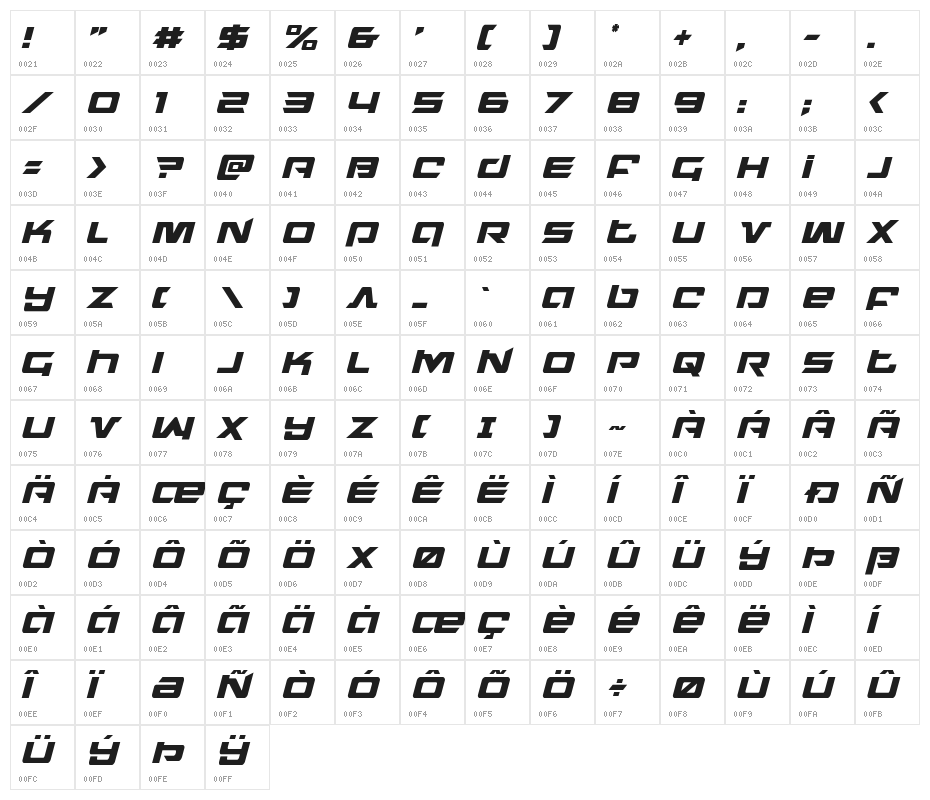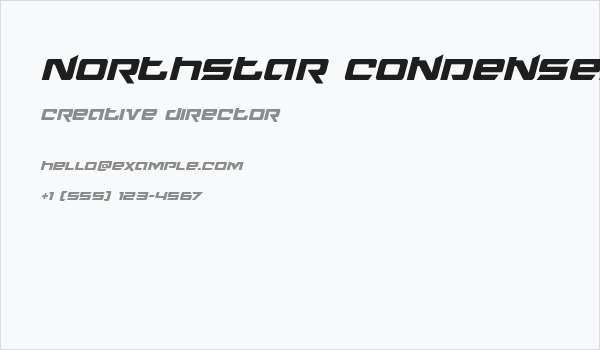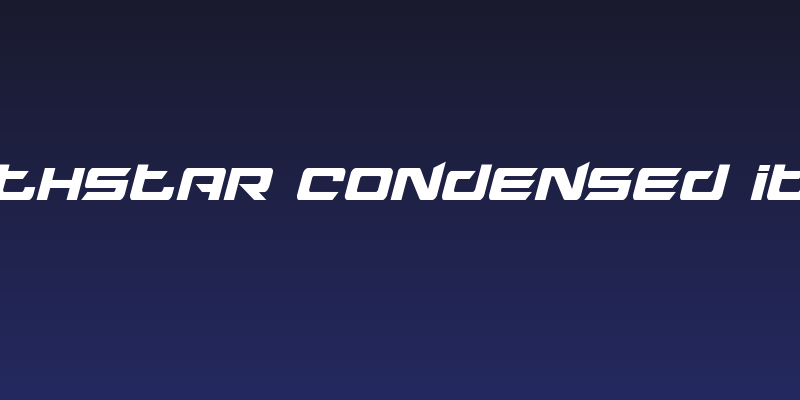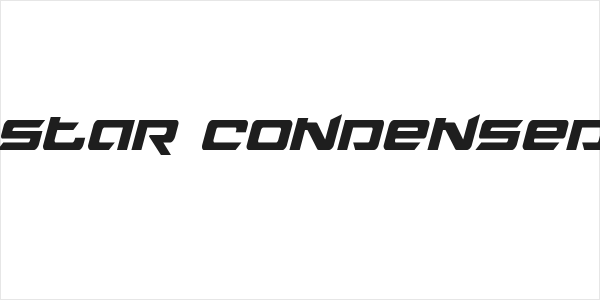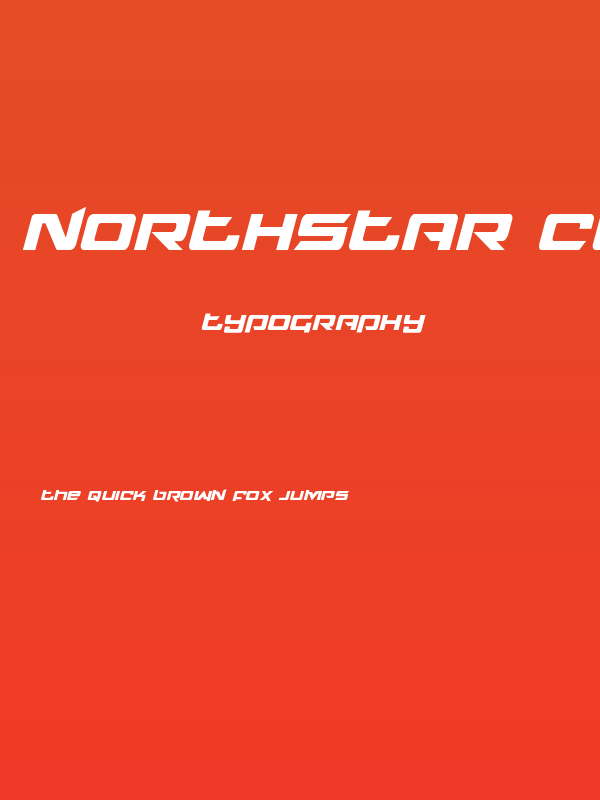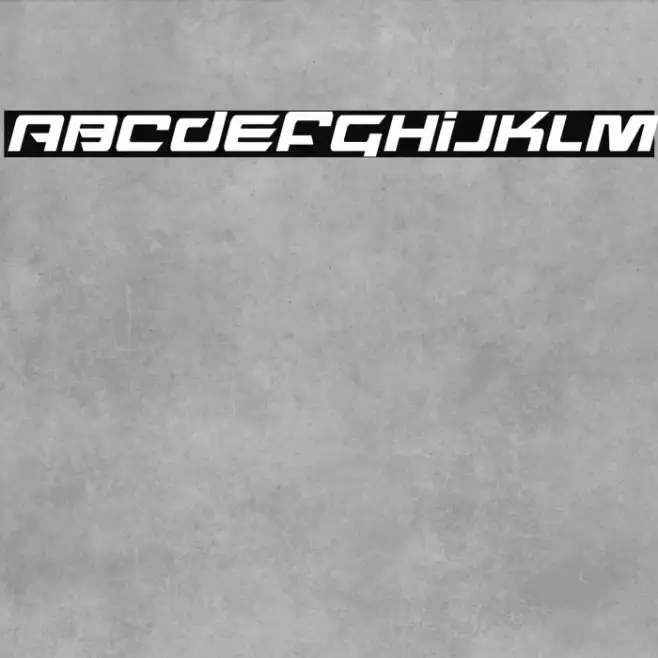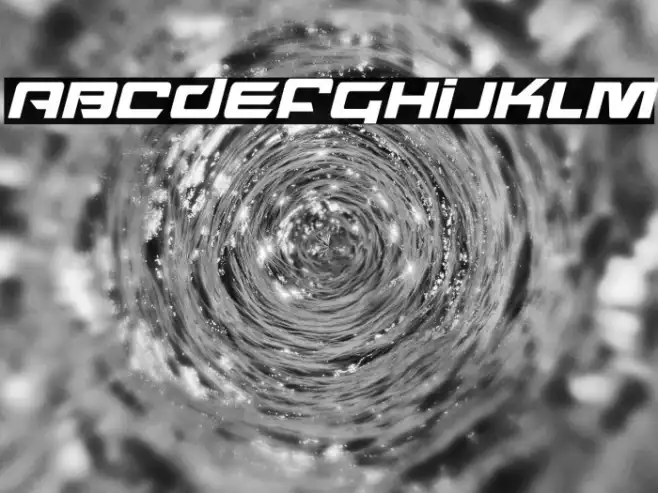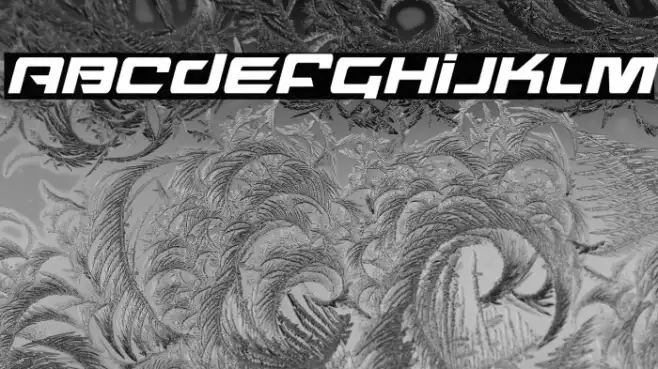
Northstar Condensed Italic Font
Northstar Condensed Italic Description
This font features a sleek, modern design with a condensed and italicized style. The characters are angular and dynamic, giving a sense of motion and speed. The uppercase and lowercase letters maintain a consistent slant, enhancing the italic effect. The numbers and special characters follow the same stylistic cues, ensuring uniformity across all elements. The font's sharp edges and geometric shapes make it stand out, while the condensed width allows for efficient use of space. This design is ideal for projects that require a futuristic or tech-savvy aesthetic.
| Use Case | Logos, Headlines, Branding |
| Proposed Projects | Ideal for branding, sports team logos, tech product packaging, and futuristic-themed designs. |